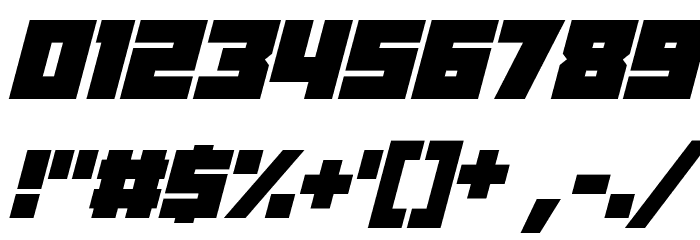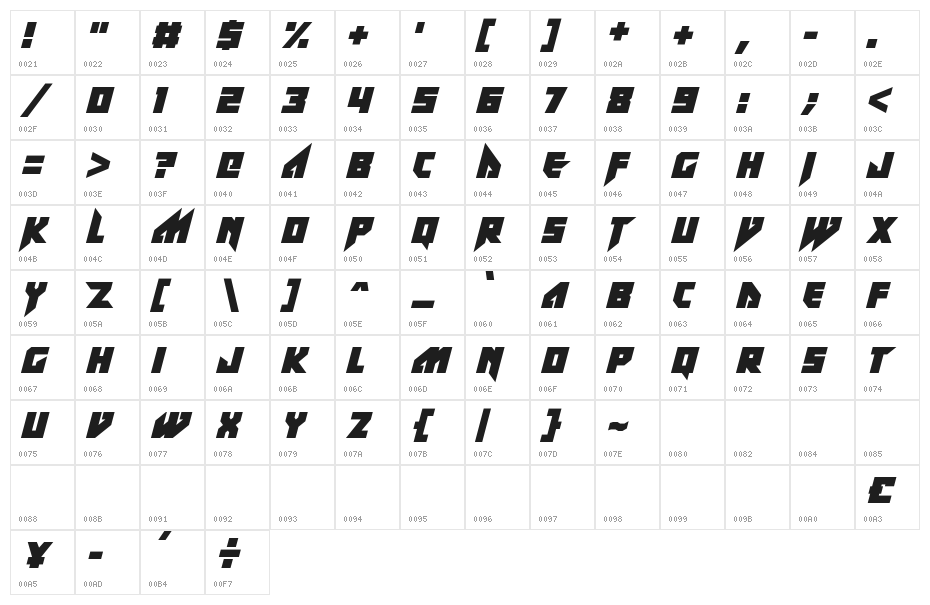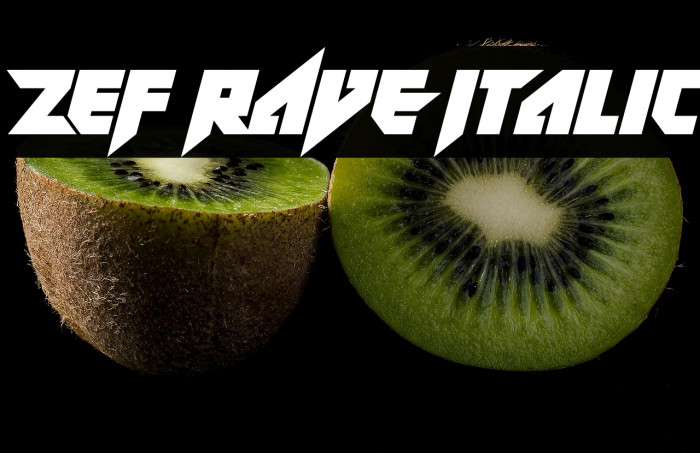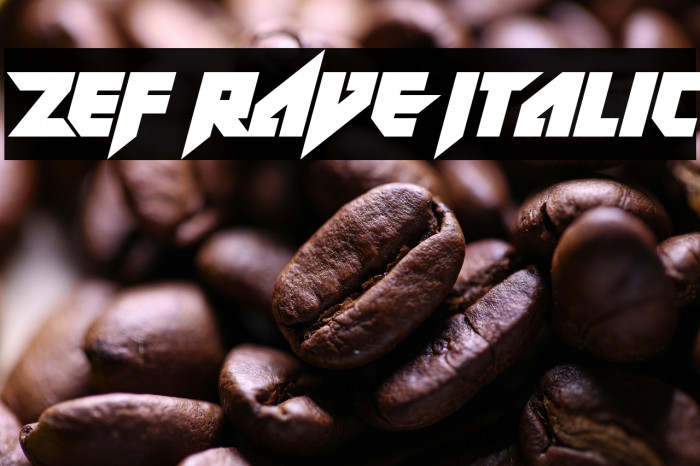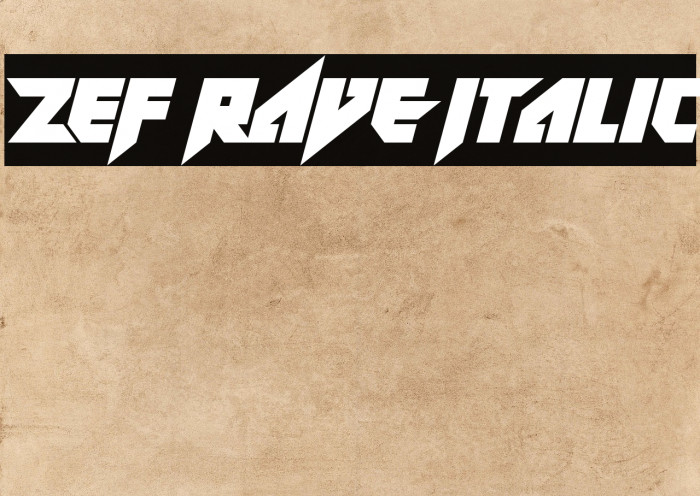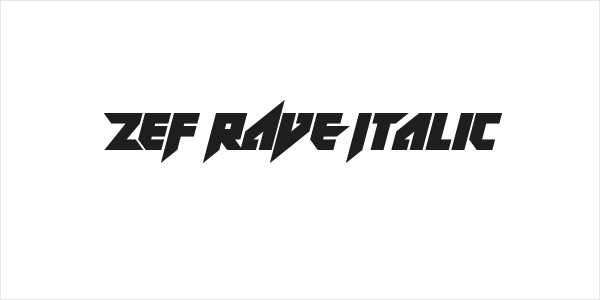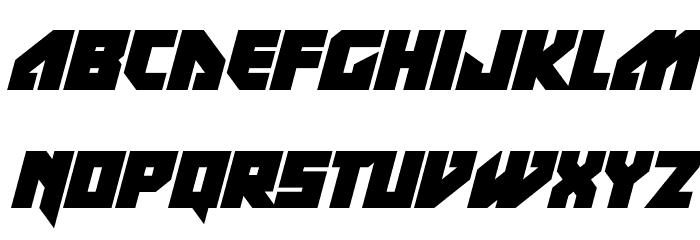
ZeF RAVE Italic Font
ZeF RAVE Italic Description
This font features a bold and dynamic design with sharp, angular edges and a futuristic aesthetic. The characters are heavily stylized with a slanted, italicized orientation, giving a sense of motion and energy. The uppercase and lowercase letters maintain a consistent geometric form, while the numbers and special characters follow the same bold and edgy style. The overall appearance is striking and modern, making it suitable for projects that require a strong visual impact.
| Proposed Projects | Ideal for use in video game titles, sci-fi movie posters, music album covers, and branding for tech companies. |